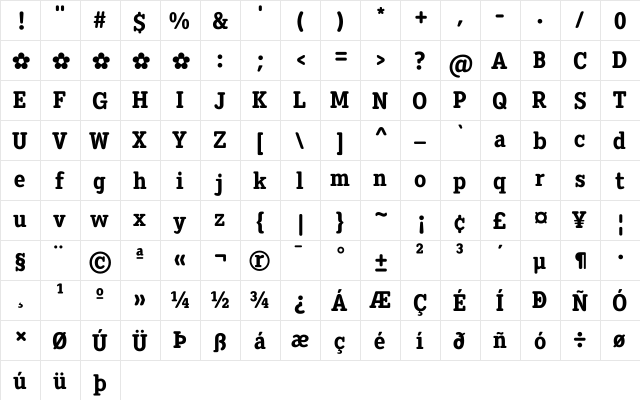
Diezma Rd ExtBd Regular
| Foundry | deFharo |
| Designer | Fernando Haro |
Design Context for Diezma Rd ExtBd Typeface
Diezma Rd ExtBd is a composed and adaptable typeface that performs quietly and consistently across a wide range of design contexts.